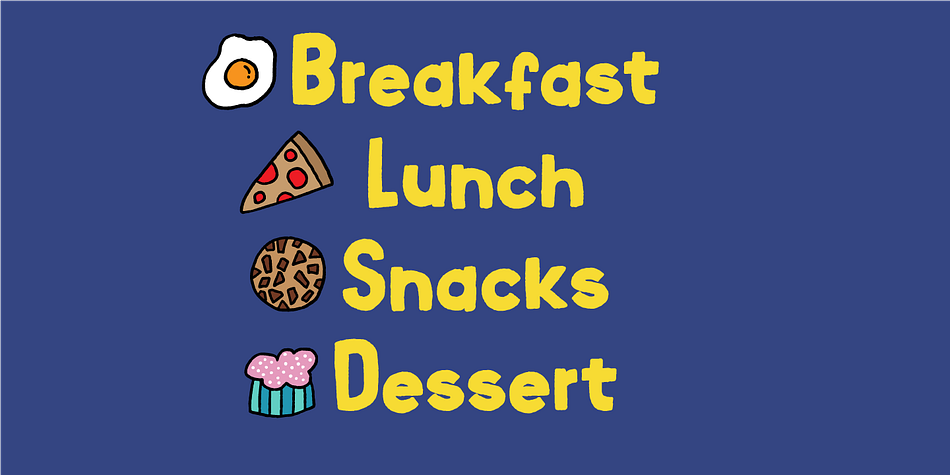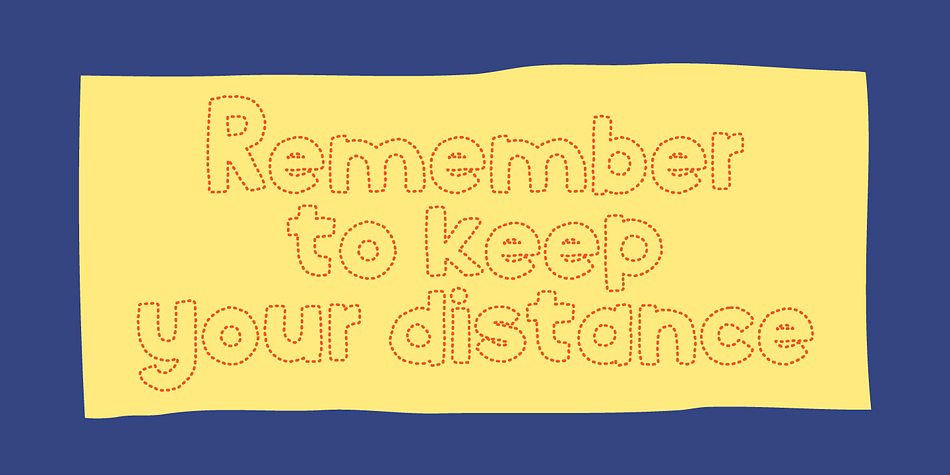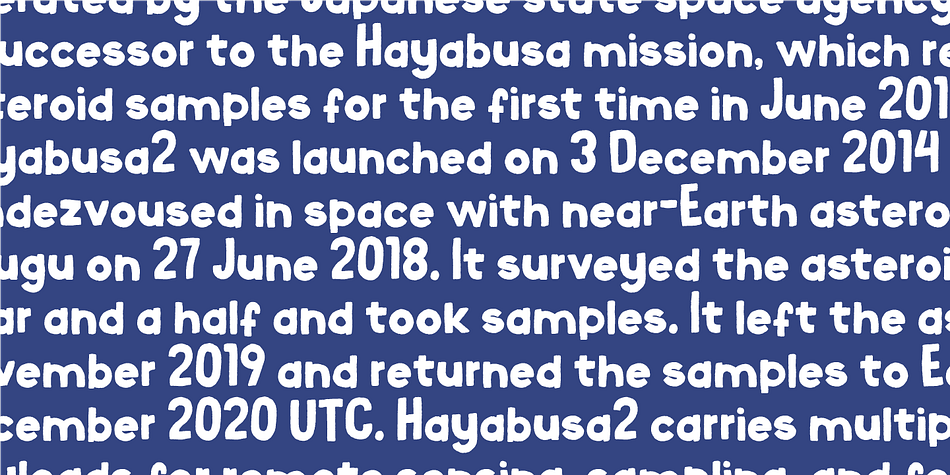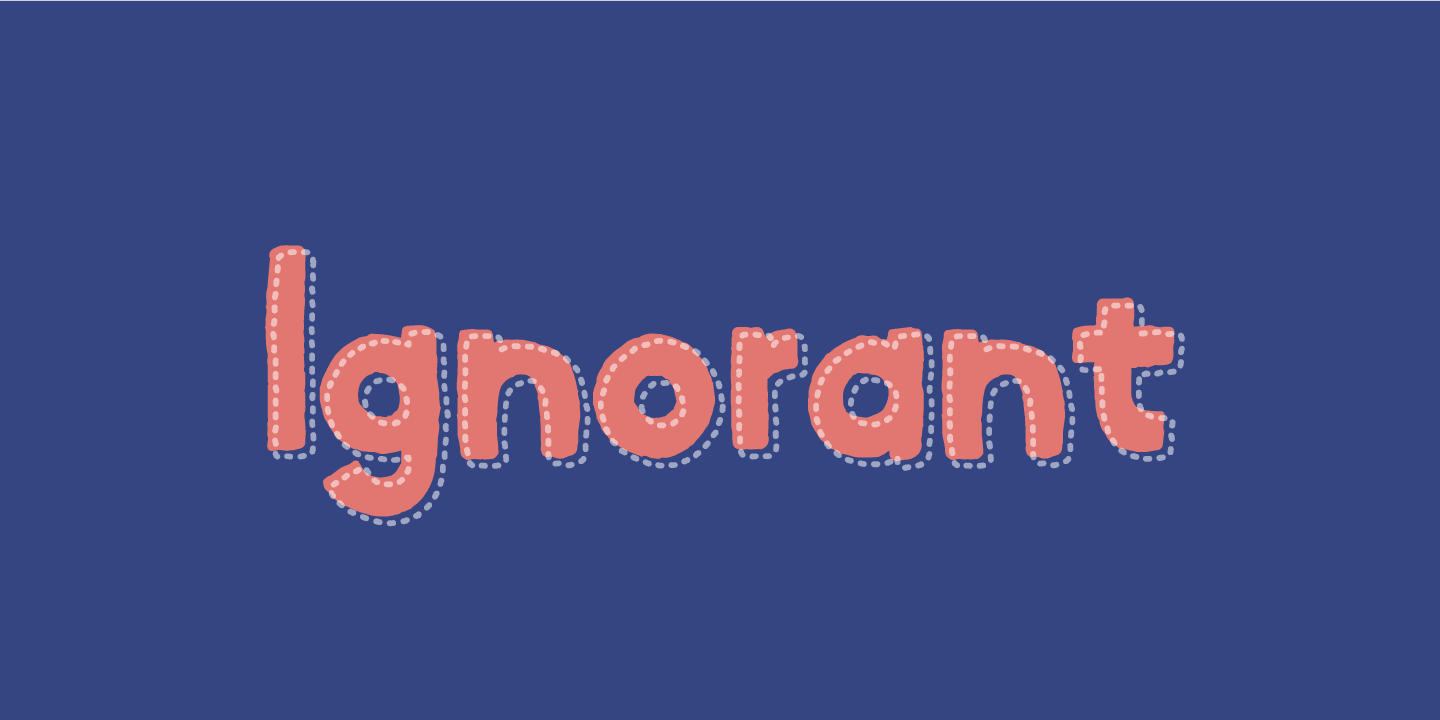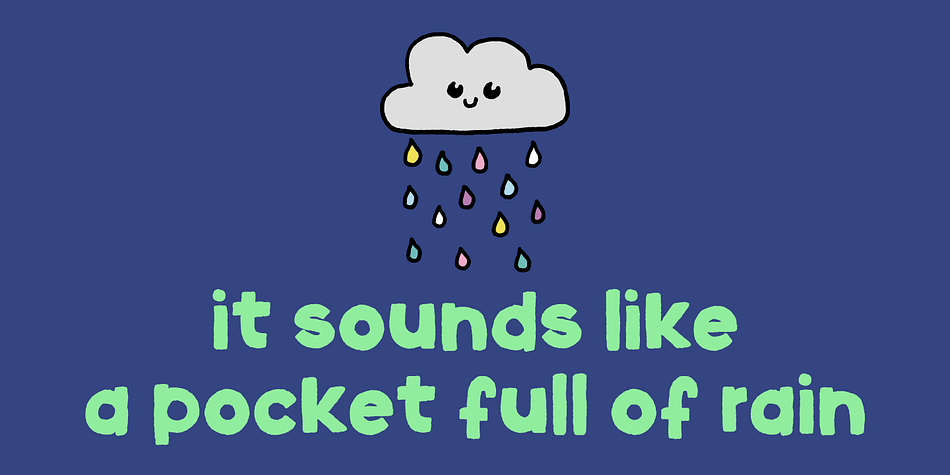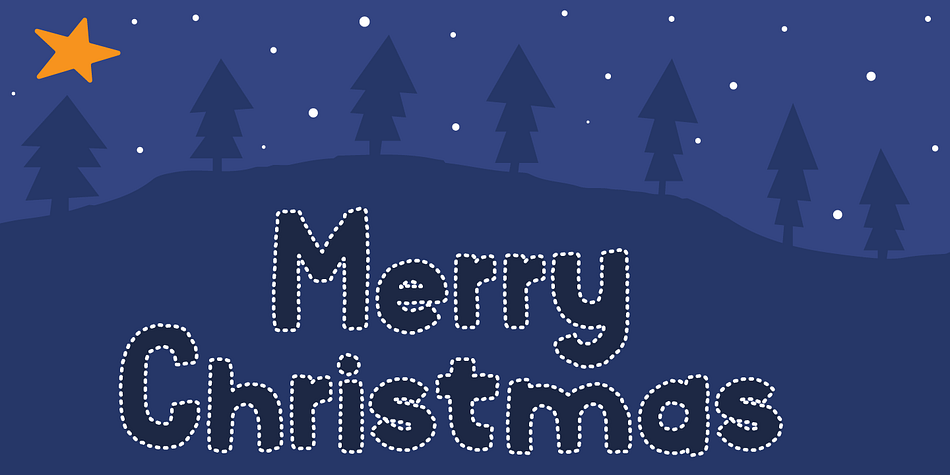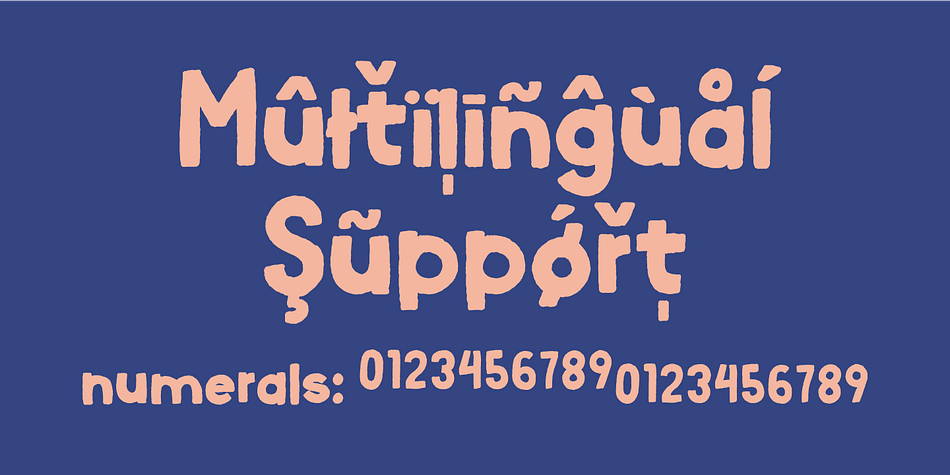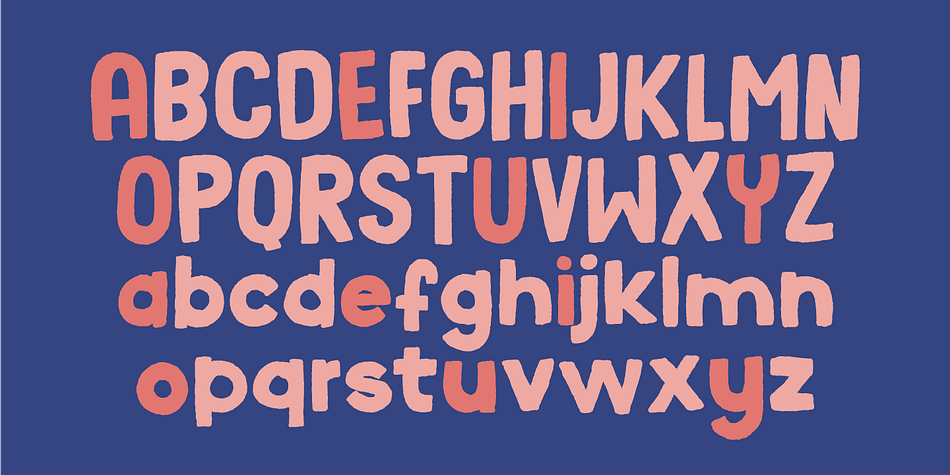
Designed by Jakob Fischer, Ignorant is a hand display and hand drawn font family. This typeface has two styles and was published by Bogstav.
Ignorant was actually drawn on a grid. But due to the loose strokes of the pen, Ignorant has a lively look. I was thinking products for kids, packaging, organic products or something alike that needs a slightly rough and handmade font!